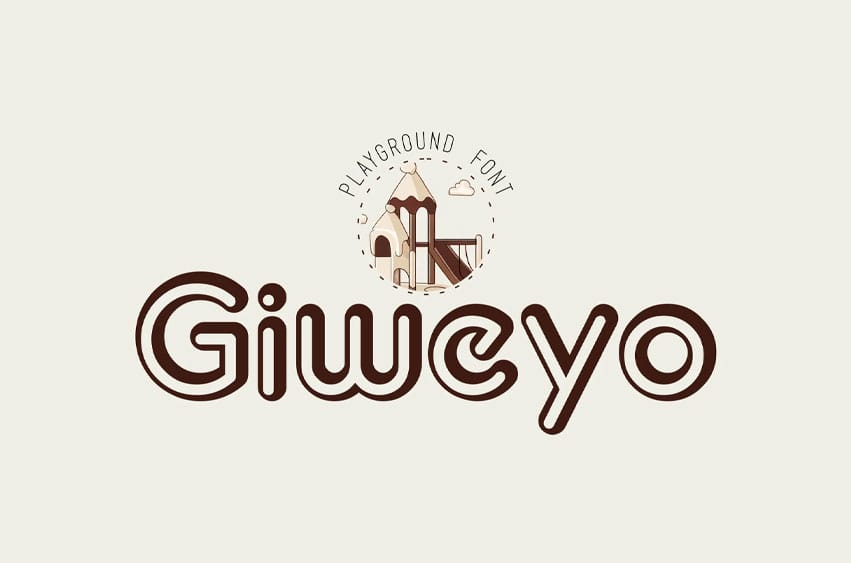
Giweyo Font is usually used for children’s playgrounds, from writing the alphabet to numbers and punctuation. It is not complicated and can be combined with colors that adjust to the situation.
It can be said to be “full color”. This font also makes it easy to apply to your child’s learning, by perhaps filling in the blank columns of letters with the colors they want.